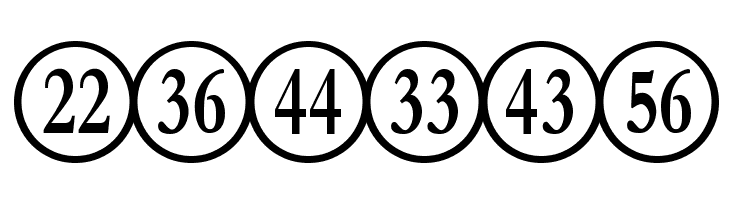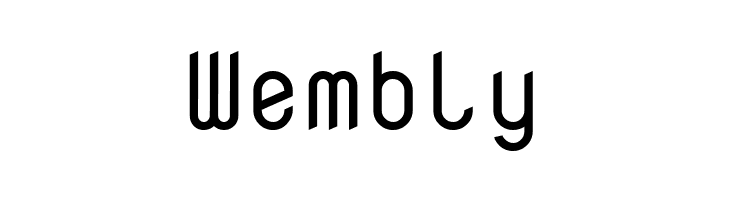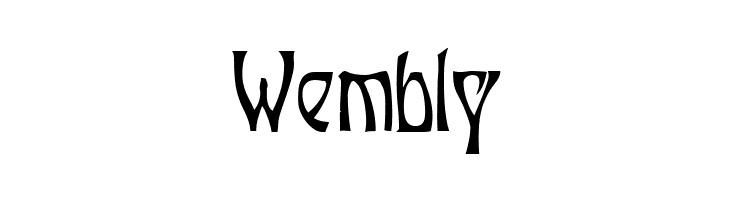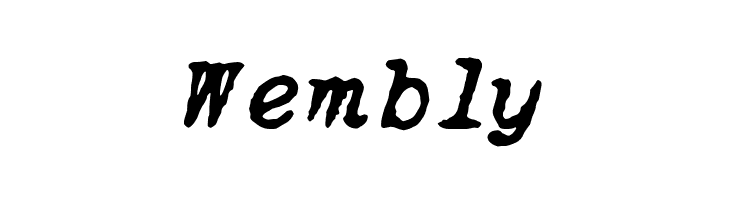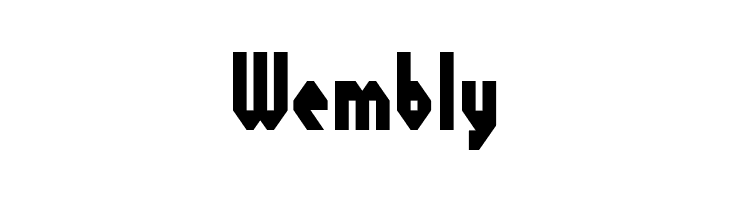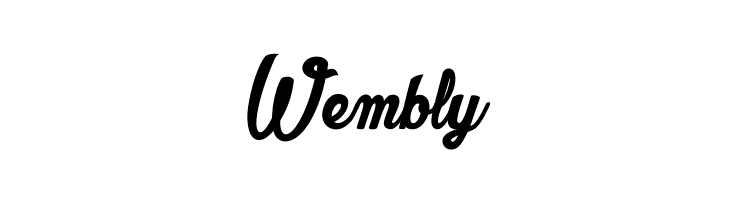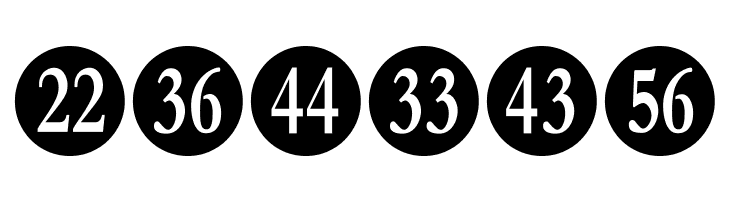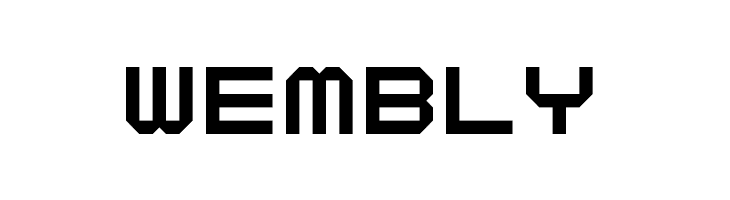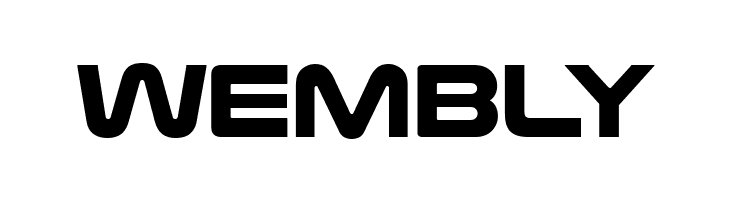
The image shows placeholder boxes instead of a valid font.
A semi-condensed, extra bold font with a modern yet classic style.
A semi-condensed, extra light serif font with refined, thin strokes.
A modern, semi-condensed font for Thai script with a light and elegant appearance.
A semi-condensed, medium-weight serif font with a clean and structured design.
Image shows placeholder boxes, not a valid font.
Invalid font with placeholder glyphs.
The image shows placeholder glyphs, indicating unsupported characters.
A refined serif typeface with thin, elegant strokes and a modern aesthetic.
A refined, thin serif font with an elegant italic style.
A modern, tall, and narrow font with clean lines and minimal curves.
A bold, modern font with geometric and futuristic elements.
Bold, serif numerals enclosed in black circles for high visibility.
Bold, rounded numbers enclosed in circles for a playful and organized look.
A bold, artistic font with a hand-drawn, whimsical style.
A whimsical, hand-drawn font with a playful and artistic style.
A bold, elegant script font with flowing, cursive letterforms and decorative flourishes.
A bold, cursive font with a flowing, handwritten style.
A modern, geometric font with clean lines and a slightly condensed style.
A modern, geometric font with consistent line weight and balanced spacing.
A vintage, typewriter-style font with a textured, hand-crafted appearance.
A vintage typewriter-style font with a rough, textured appearance.
A bold, geometric font with a collegiate and modern aesthetic.
A bold, industrial font with a geometric, stencil-like design.
A bold, geometric font with a strong, athletic aesthetic, ideal for sports-themed designs.
A rugged, stencil-like font with a distressed, spray-painted texture.
A bold, geometric stencil font with an industrial aesthetic.
A bold, distressed font with a vintage, industrial aesthetic.
A bold, geometric font with an octagonal design and modern appeal.